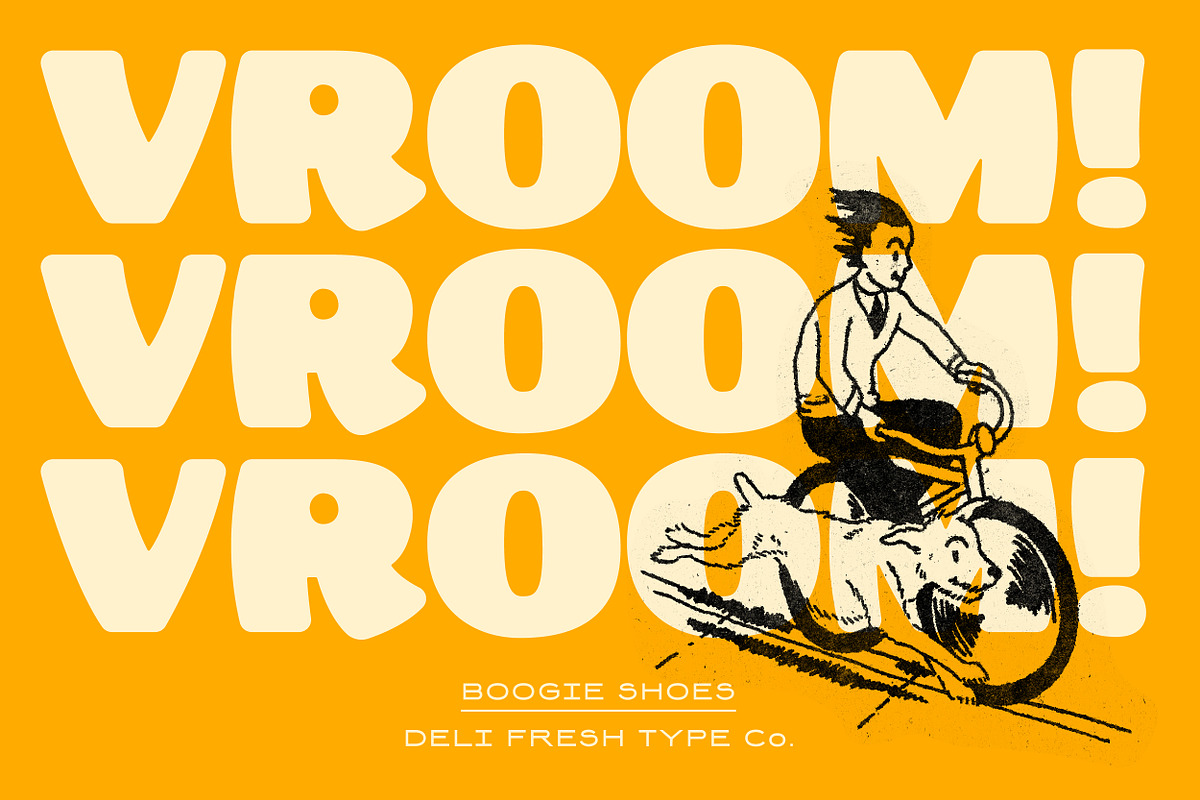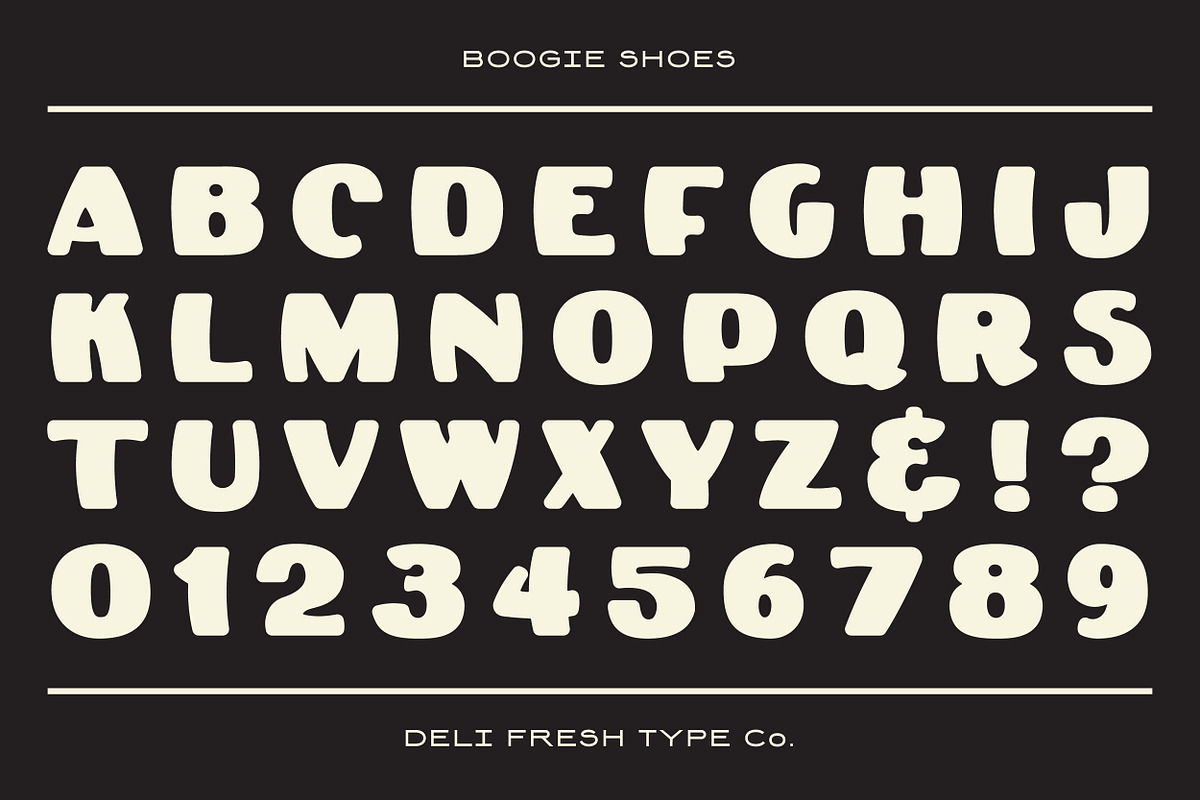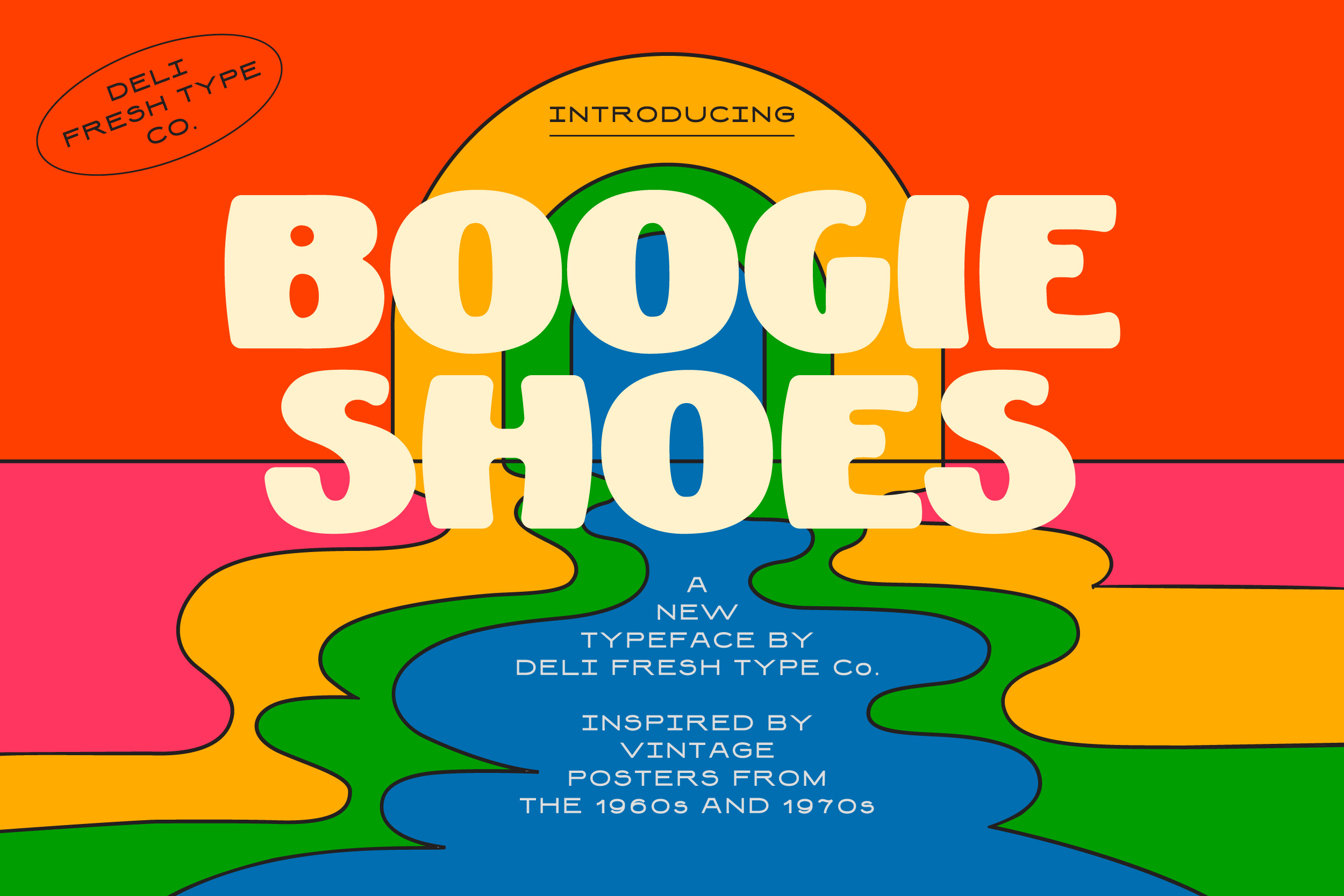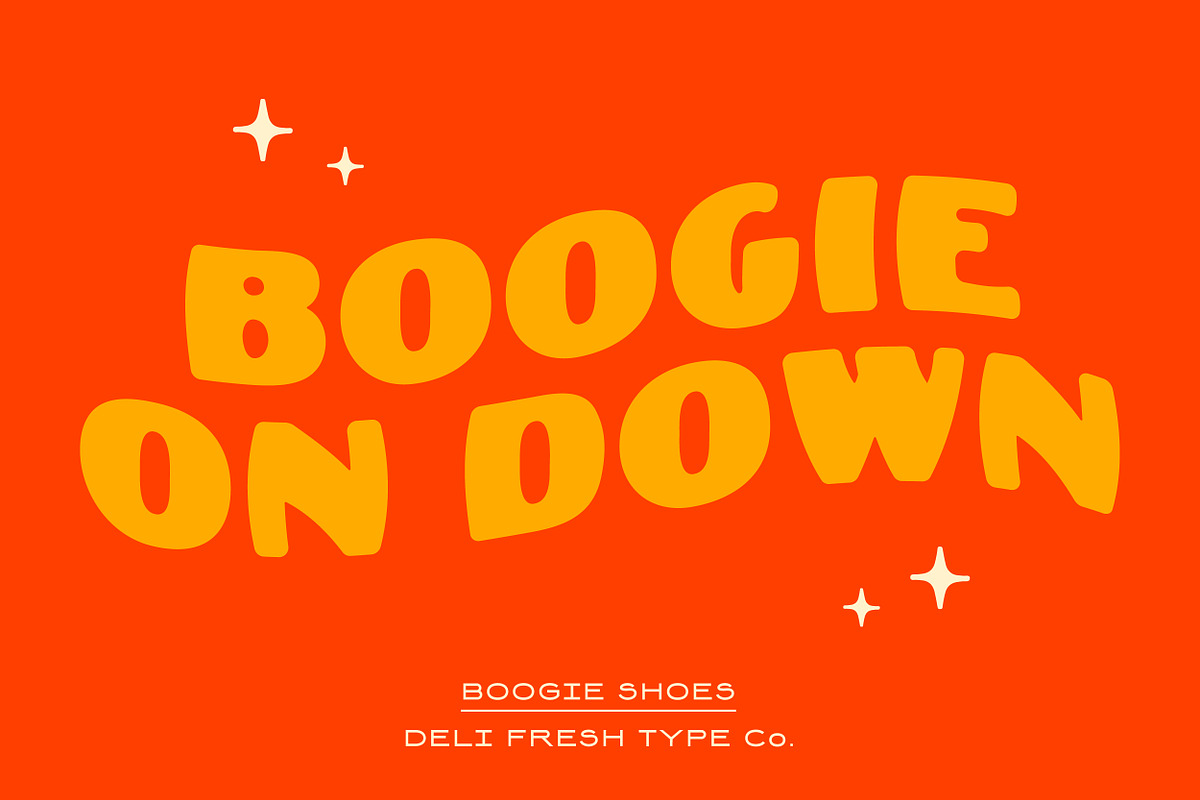
Boogie Shoes: A Retro Poster Font
A retro display typeface inspired by old school posters.
This hefty font comes with capitals, numerals, and a smattering of special characters.